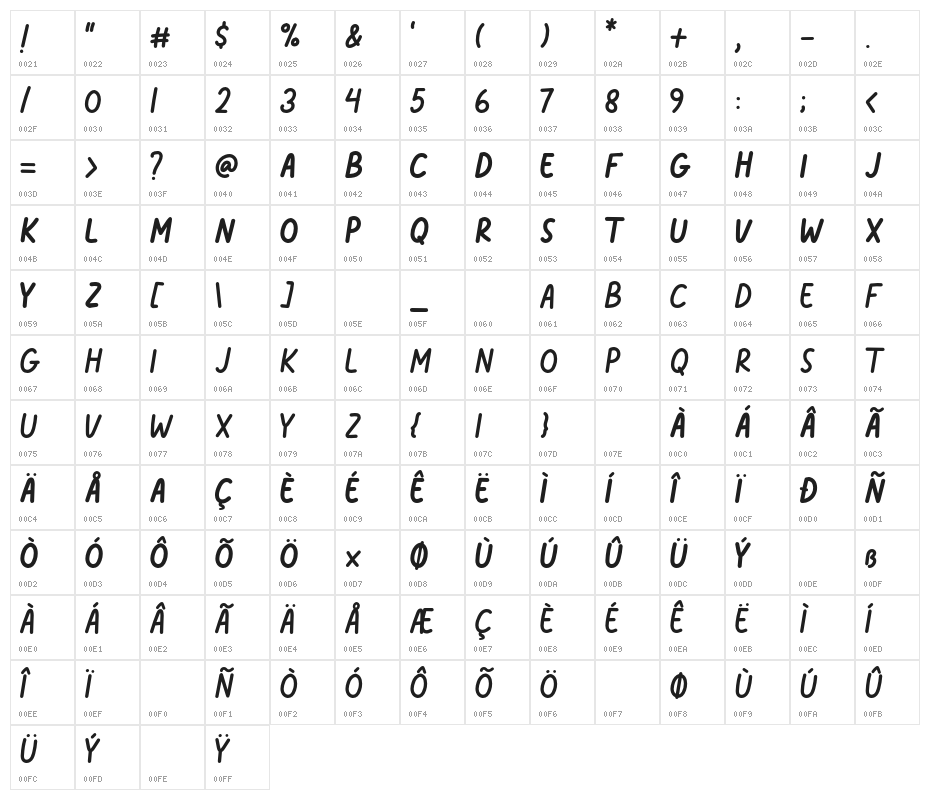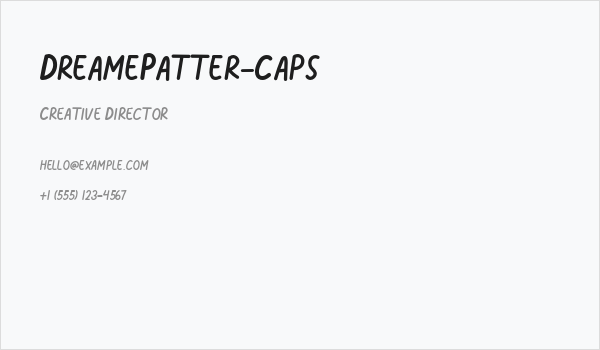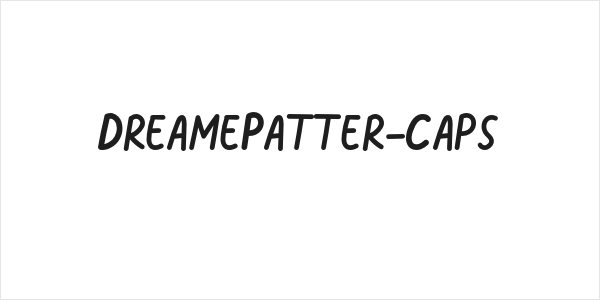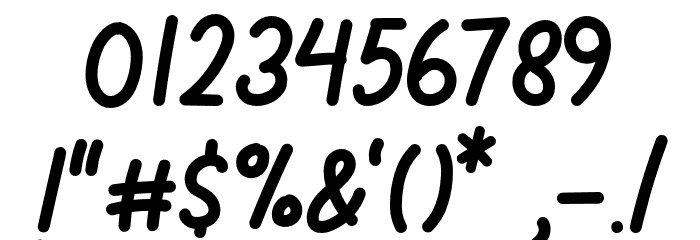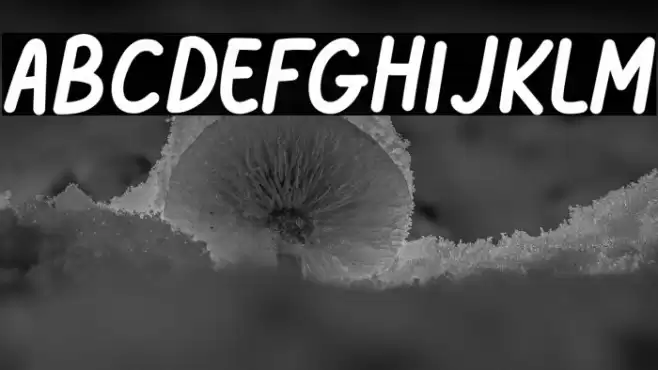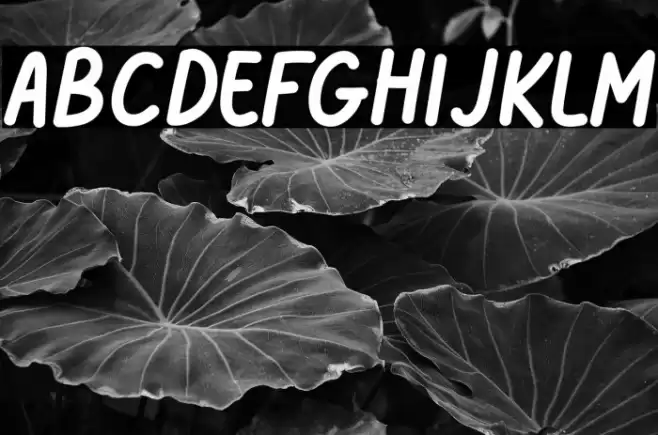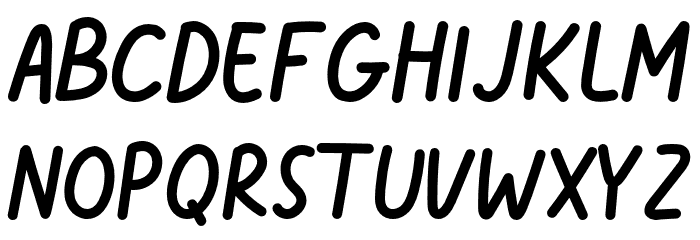
DreamePatter-Caps Font
DreamePatter-Caps Description
This font features a playful and casual handwritten style, characterized by smooth, rounded edges and a consistent stroke width. The letters have a slight slant, adding a dynamic and informal feel. The uppercase and lowercase letters are well-proportioned, maintaining readability while conveying a friendly and approachable tone. The numerals and special characters are designed to match the overall aesthetic, ensuring a cohesive look across all text elements. This font is versatile, suitable for projects that require a personal touch or a relaxed atmosphere.
| Overall Style | Casual, Playful |
| Use Case | Headlines, Informal text, Branding |
| Proposed Projects | Ideal for greeting cards, invitations, casual branding, and social media graphics. |